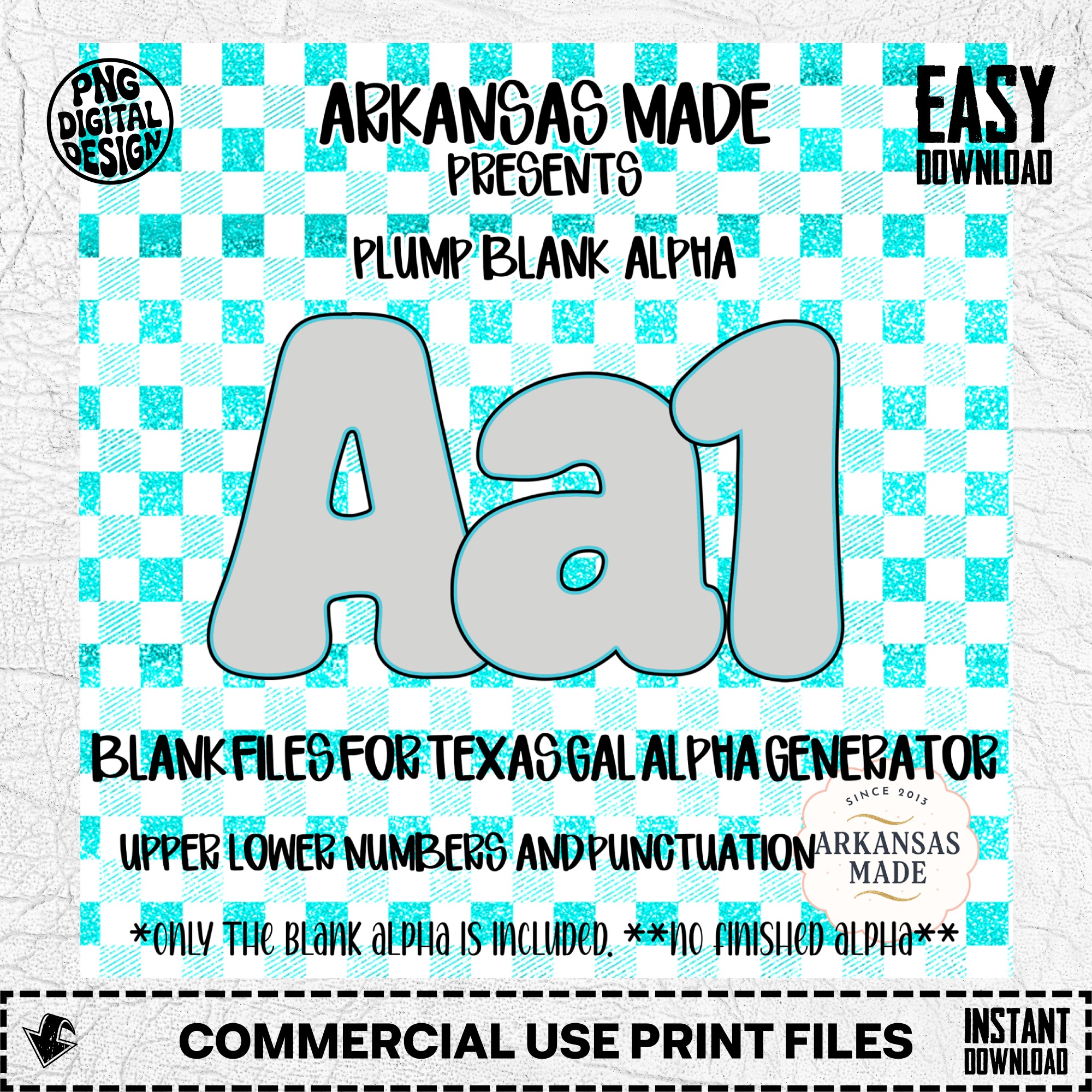
Blank Fillable Alpha Set, Bubbly Digital Alphabet SVG PNG, Outline Letters, Texas Gal Alpha Generator Files, Crafting Font
Unlock endless creativity with our Blank Fillable Alpha Set! This bubbly digital alphabet is perfect for all your custom design projects. Designed for digital crafters and small business owners, this versatile outline font includes uppercase, lowercase, numbers, and punctuation. Ideal for personalized gifts, sublimation designs, or specifically for use with your Texas Gal Alpha Generator. Instantly download and start creating unique items today!